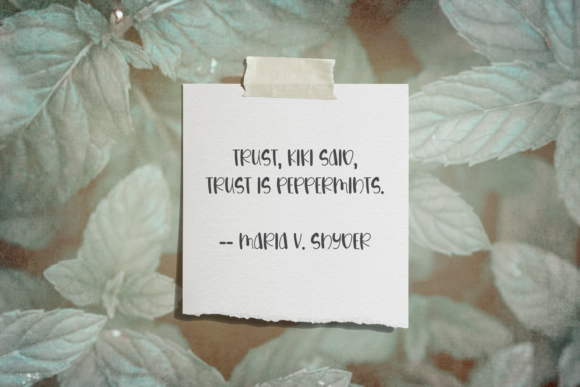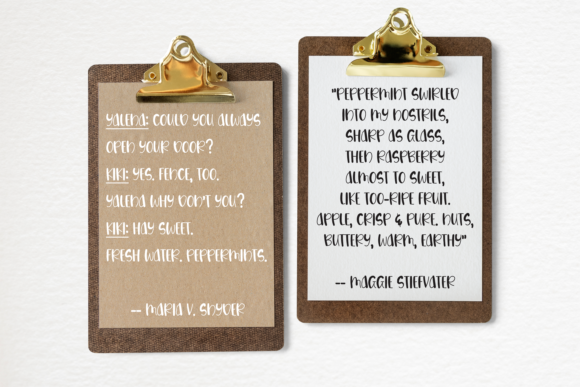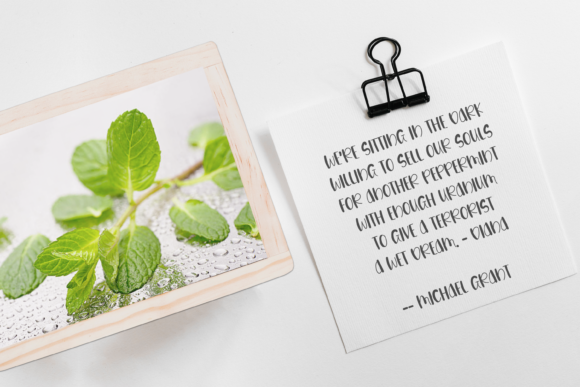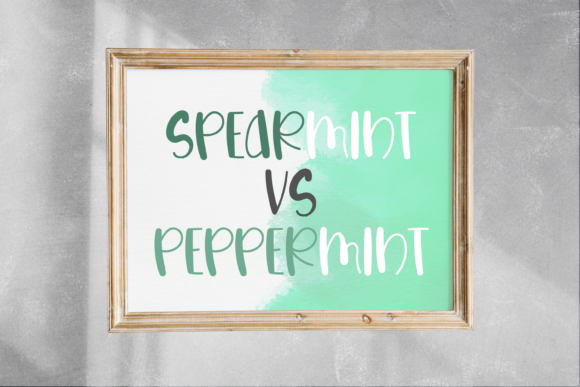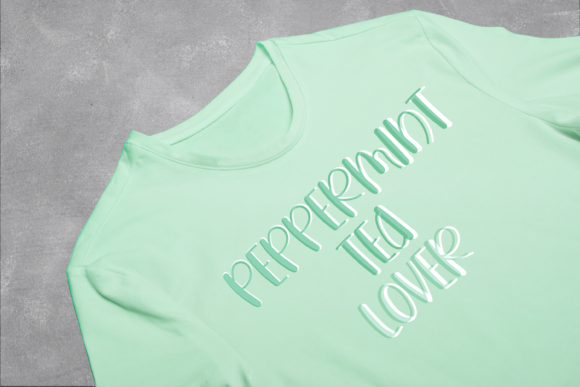
About Peppermint Font
Peppermint is a quirky & playful handwritten font. Get inspired by its incredibly fun feel. Use this font to turn any design project into a standout!